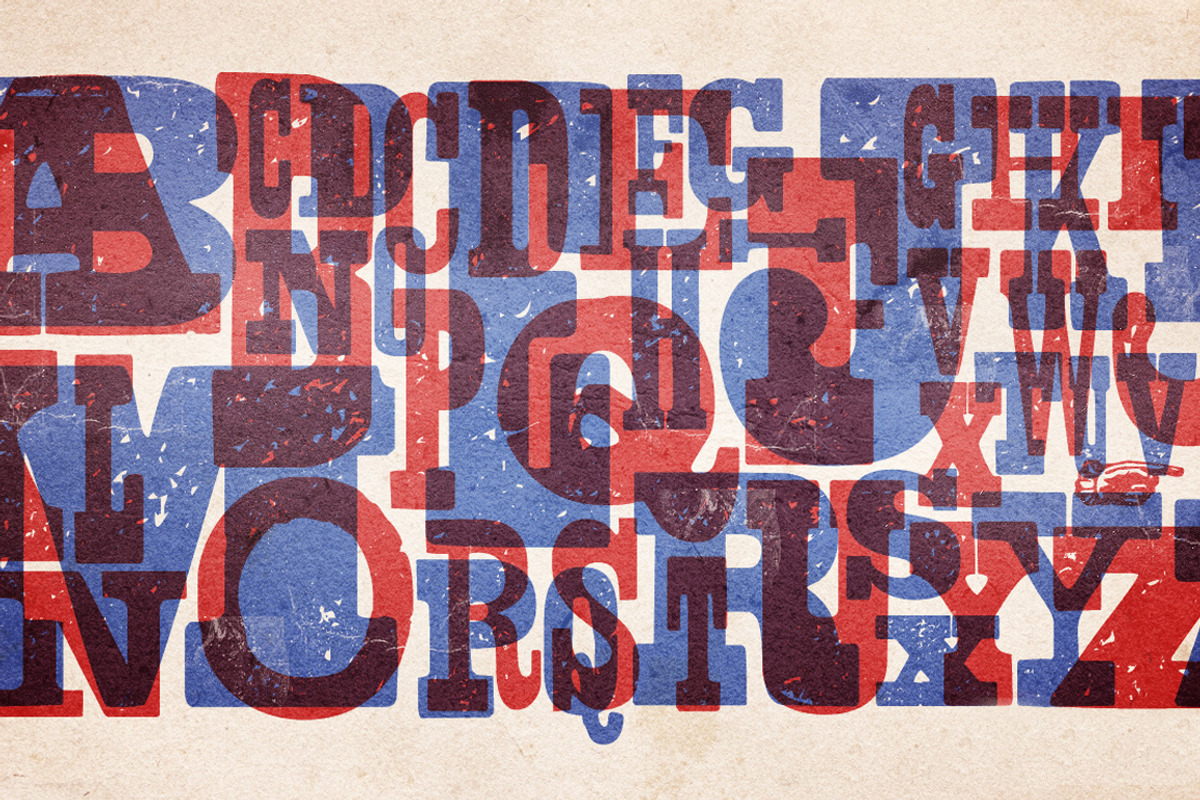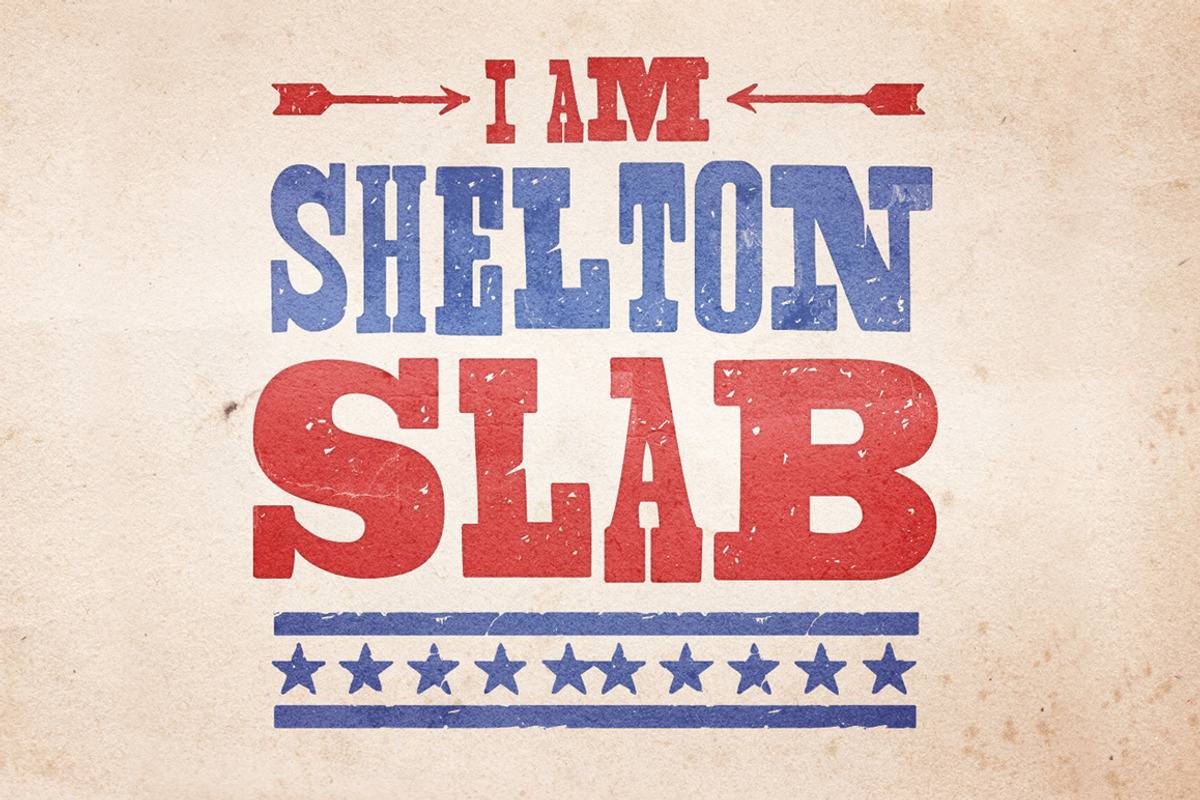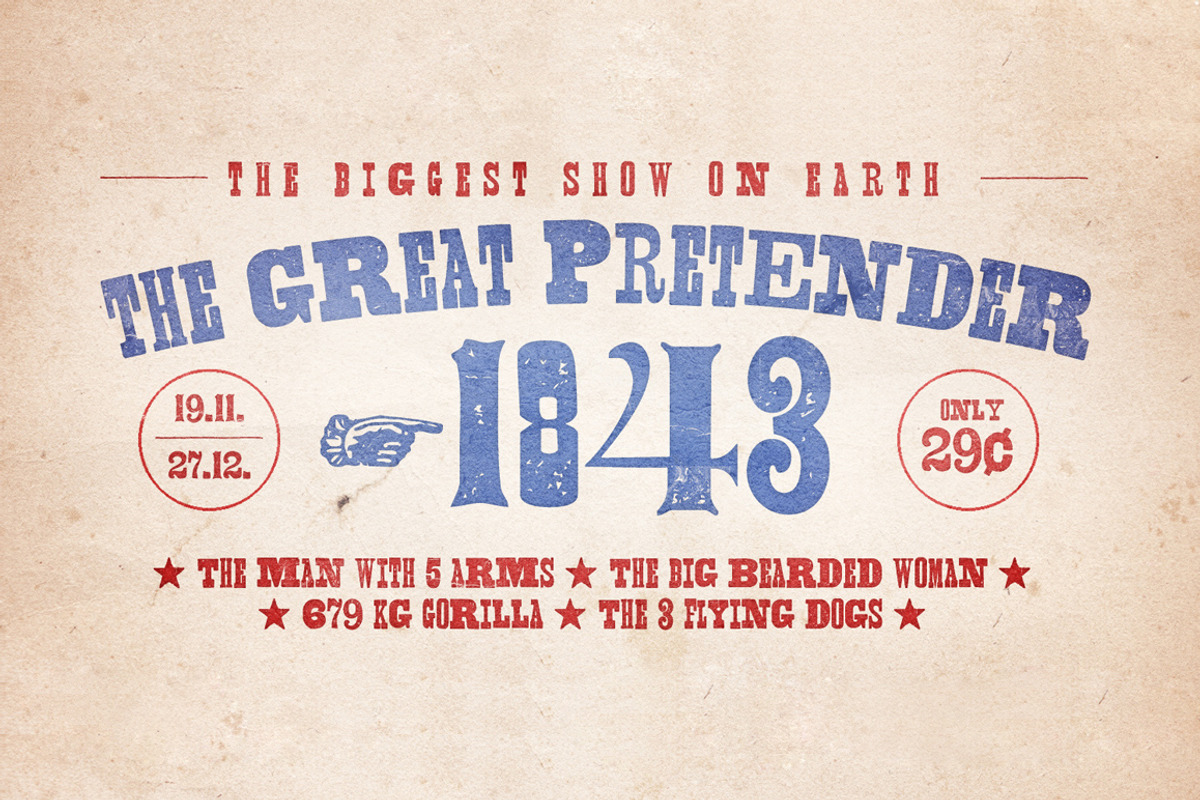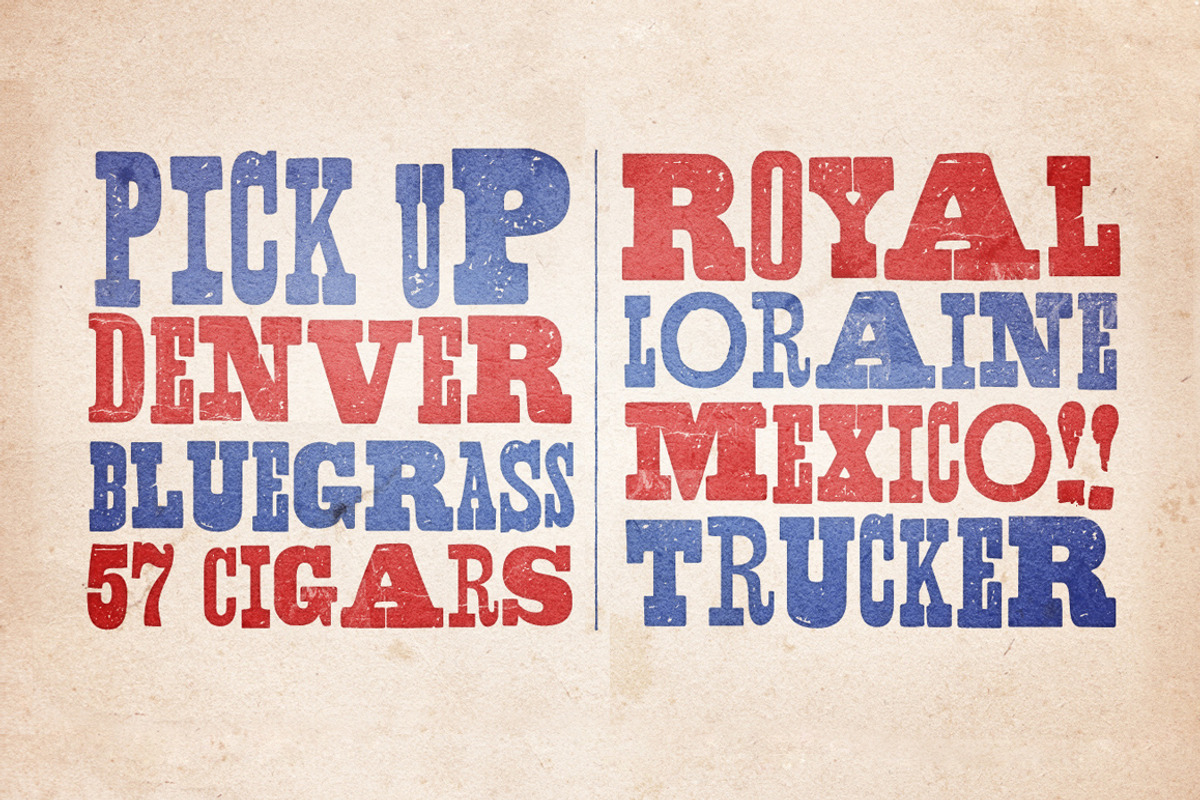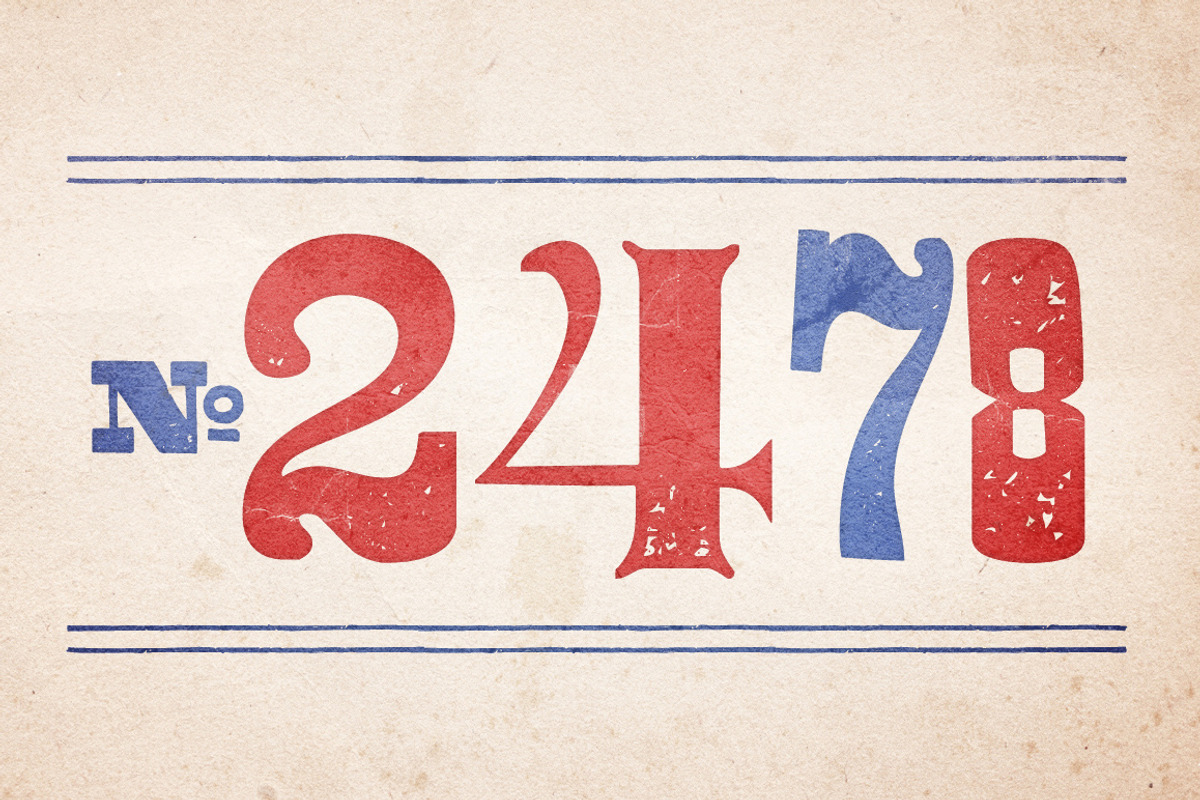
Shelton Slab
Shelton Slab by HvD Fonts is a font selected for branding, posters, packaging, typography.
- Shelton Slab has an extended character set to support Central and Eastern European languages and also contains arrows and some other special
- Shelton Slab is a typeface with an eroded, printed look, representing beautiful uppercase wood type characters.
- Every uppercase letter has an alternate character placed in the lowercase slot.
Shelton Slab by HvD Fonts fits naturally into Branding, posters, packaging, typography.